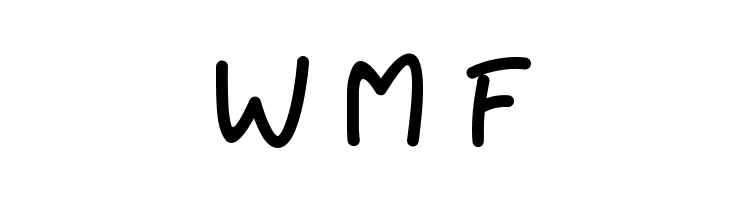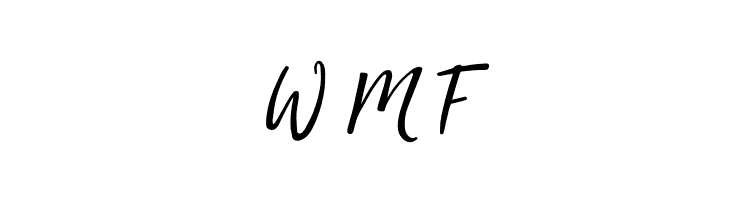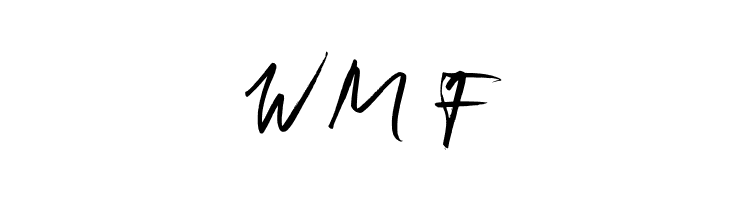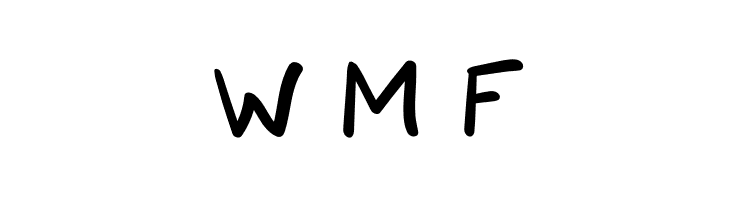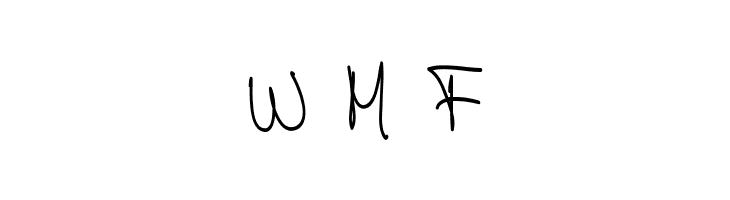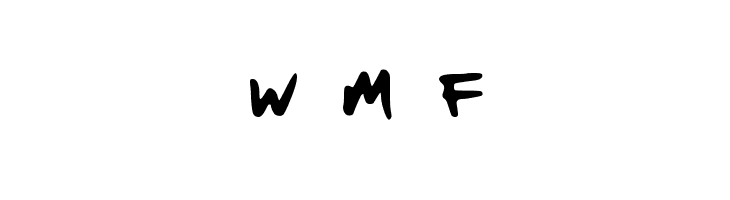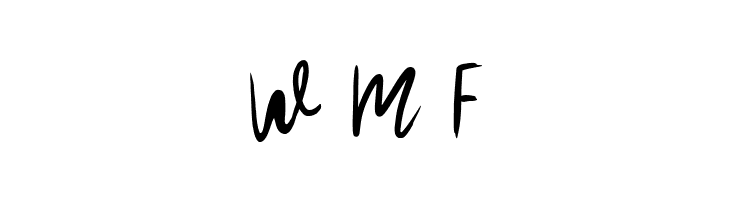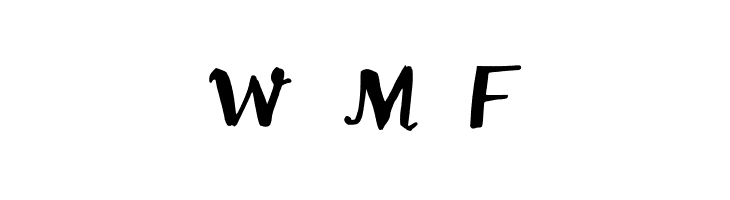
A sophisticated script font with fluid, interconnected strokes and elegant curves.
A lively, expressive handwritten font with fluid, dynamic strokes.
A bold, expressive handwritten font with fluid strokes and medium contrast.
A dynamic and expressive handwritten font with fluid, energetic strokes.
A playful, rounded font with a casual, hand-drawn style.
A playful, handwritten font with smooth, rounded edges and a casual style.
A playful, hand-drawn font with quirky, tall letters and whimsical symbols.
A bold, handwritten font with a casual and playful style.
A dynamic script font with fluid strokes and a handwritten style.
Casual handwritten sans-serif with rounded, playful forms.